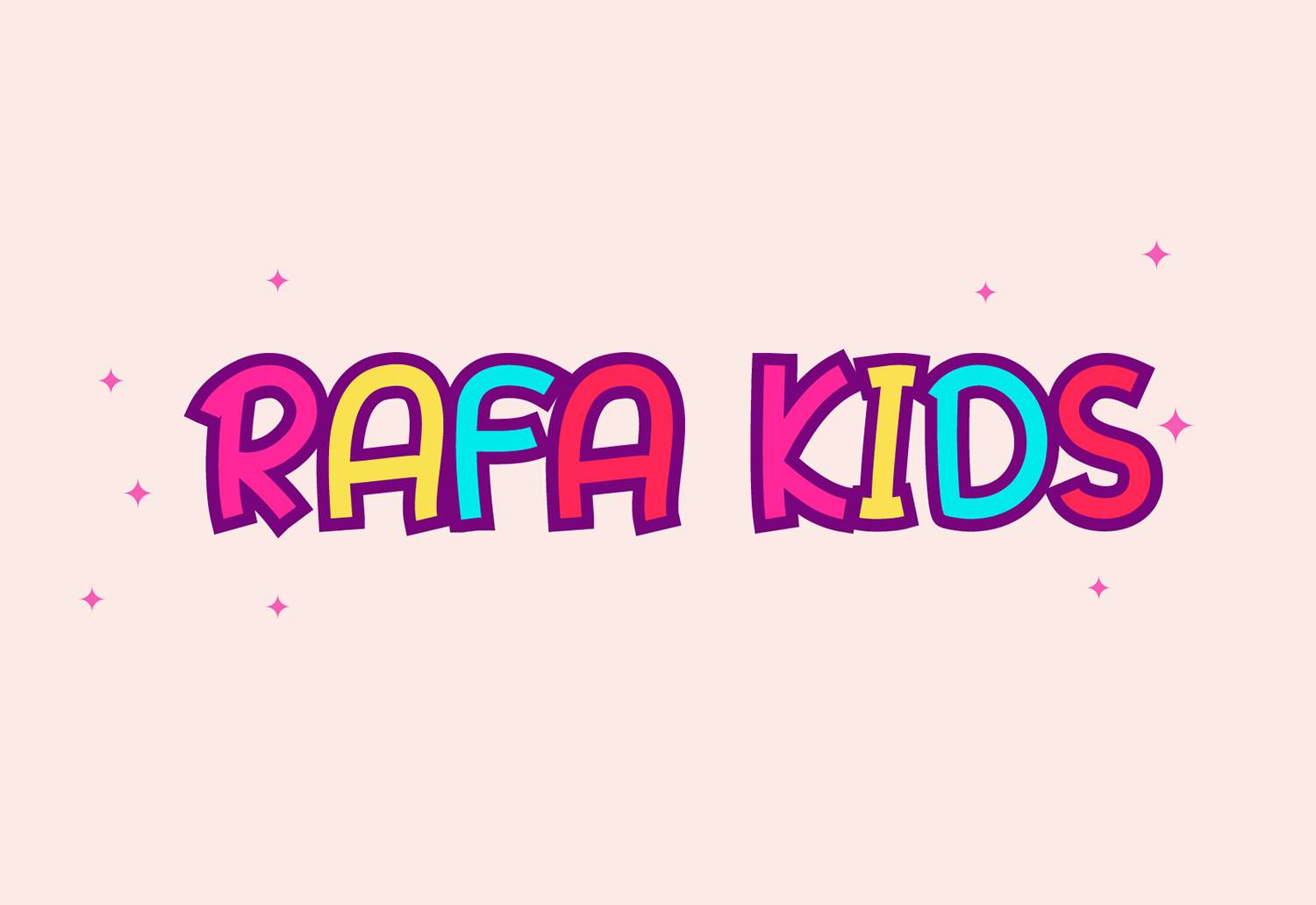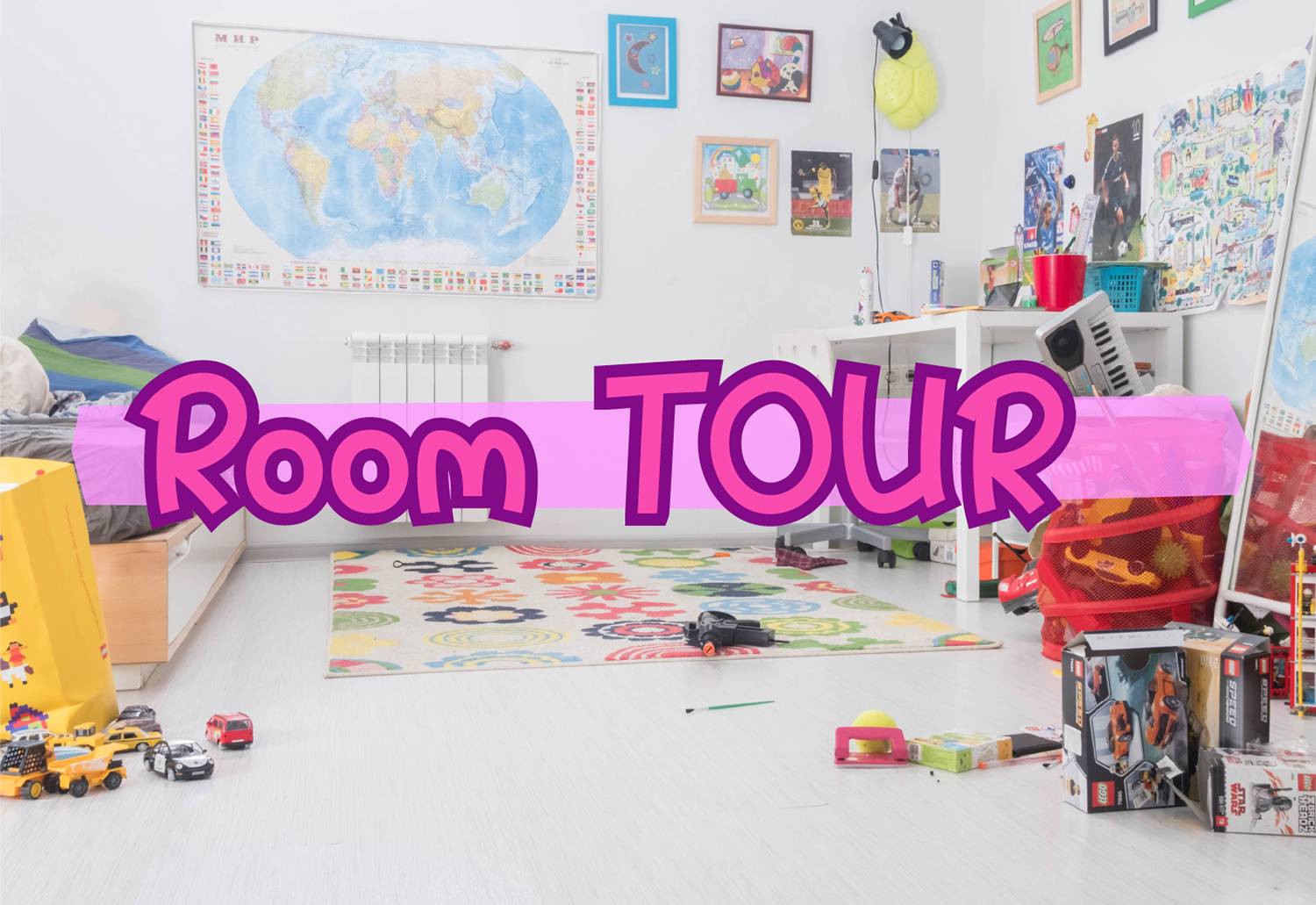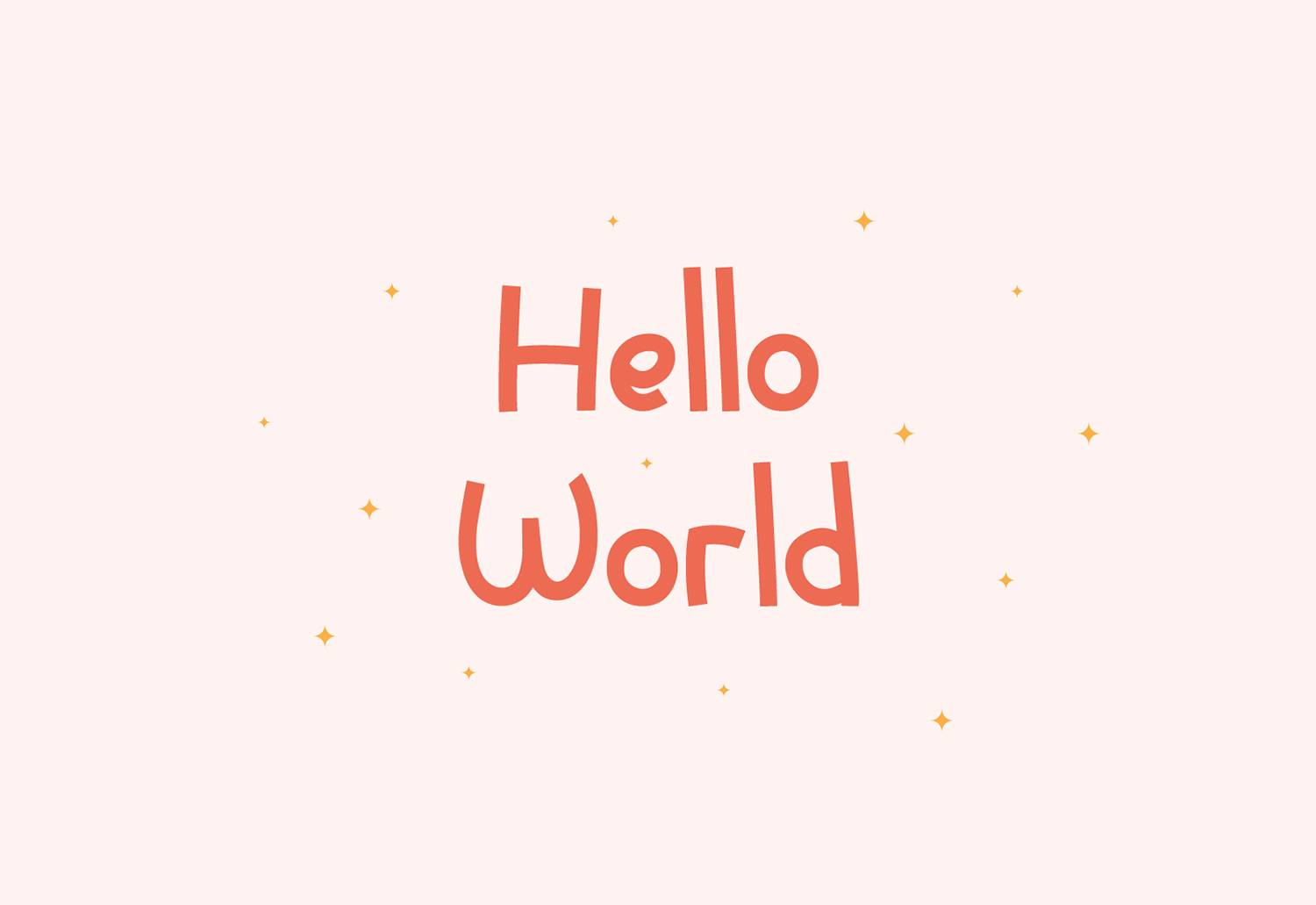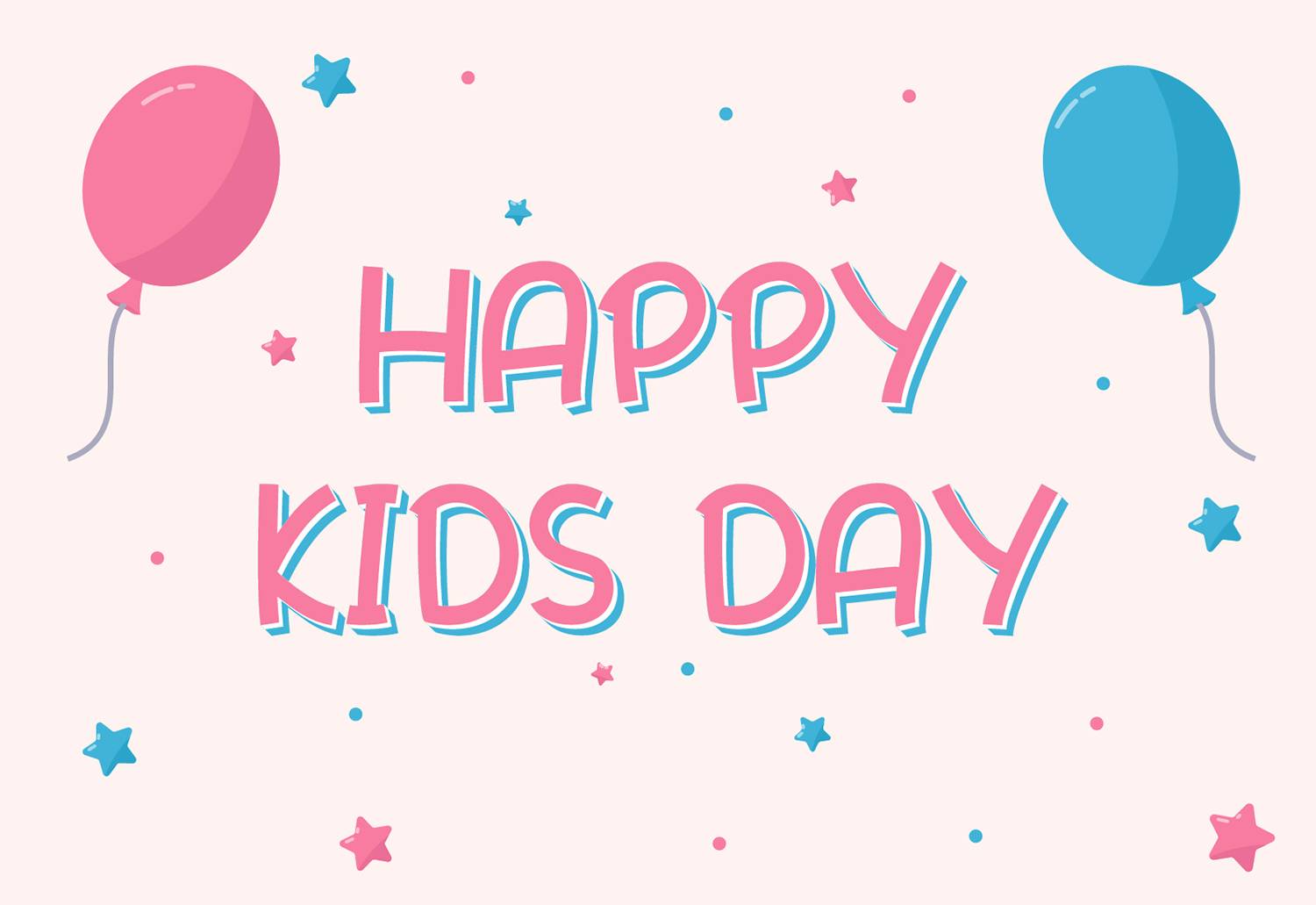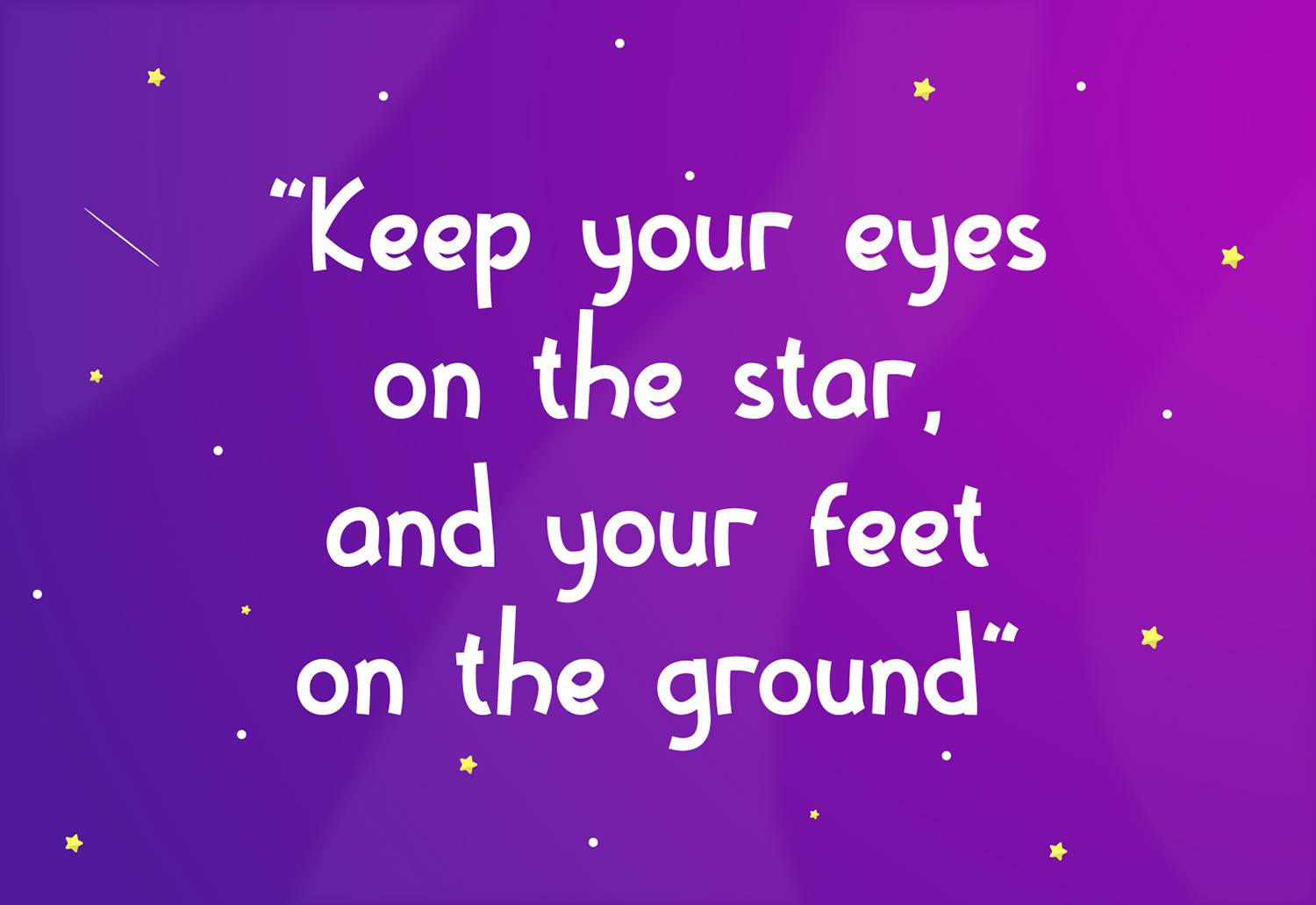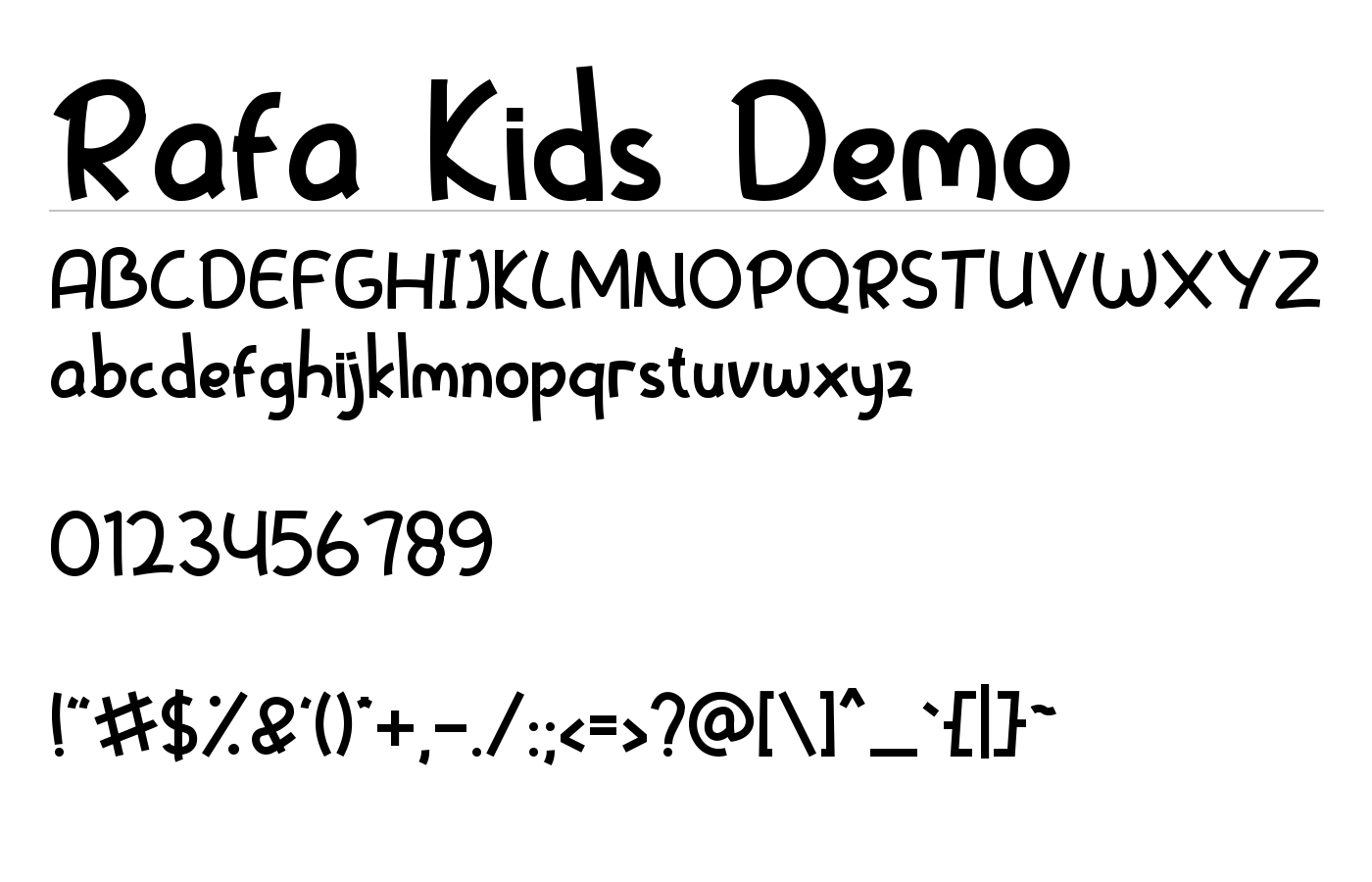
Rafa Kids is a playful sans serif font with a casual, hand-drawn style that feels friendly and approachable. Its rounded, irregular shapes and moderate weight make it perfect for children's books, educational materials, or fun branding that aims to convey warmth and creativity. This font works well in headlines and short texts where a lighthearted, informal tone is desired.
Rafa Kids Font
About Rafa Kids Font
| Font family | Rafa Kids Font |
| Release date | 2021-02-26 |
| Designer | Mustofa Nur Sidiq |